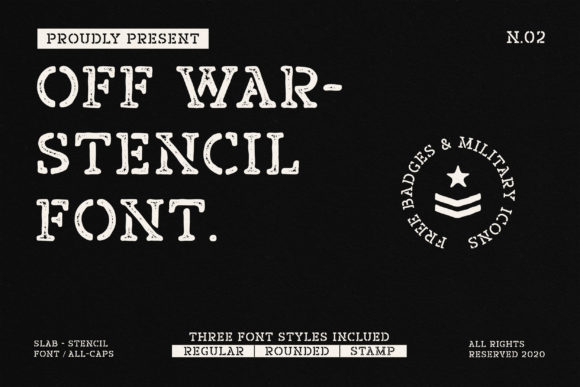
Voyage back to a bygone age of nostalgia with Off War, a slab serif stencil font brimming with vintage charm. This extraordinary font family, conjured by the skilled hands of liszarinzani, offers three distinct styles: the time-honored regular, the subtly playful rounded, and the resolutely bold stamp.
Off War's essence lies in its versatility, effortlessly adapting to a myriad of creative endeavors. Its innate elegance lends itself perfectly to logos, imbuing them with a timeless aura of distinction. Unleash your inner designer and craft badges that exude an air of authenticity. Let your apparel designs speak volumes with Off War's captivating presence. Placard and posters will come alive with an undeniable vintage allure, transporting viewers to an era of yesteryear.
Off War's allure extends beyond mere aesthetics. Its meticulously crafted stencil style imparts an inherent sense of durability, ensuring your designs stand the test of time. Whether gracing the covers of magazines or adorning the packaging of your artisanal products, Off War leaves an indelible mark of sophistication and charm.
In a world saturated with homogeneity, Off War emerges as a beacon of individuality, a font that empowers you to forge a unique visual identity for your brand. Join the ranks of discerning designers and creatives who have embraced Off War's timeless appeal. Allow your imagination to soar as you craft designs that resonate with authenticity and evoke a profound sense of nostalgia.